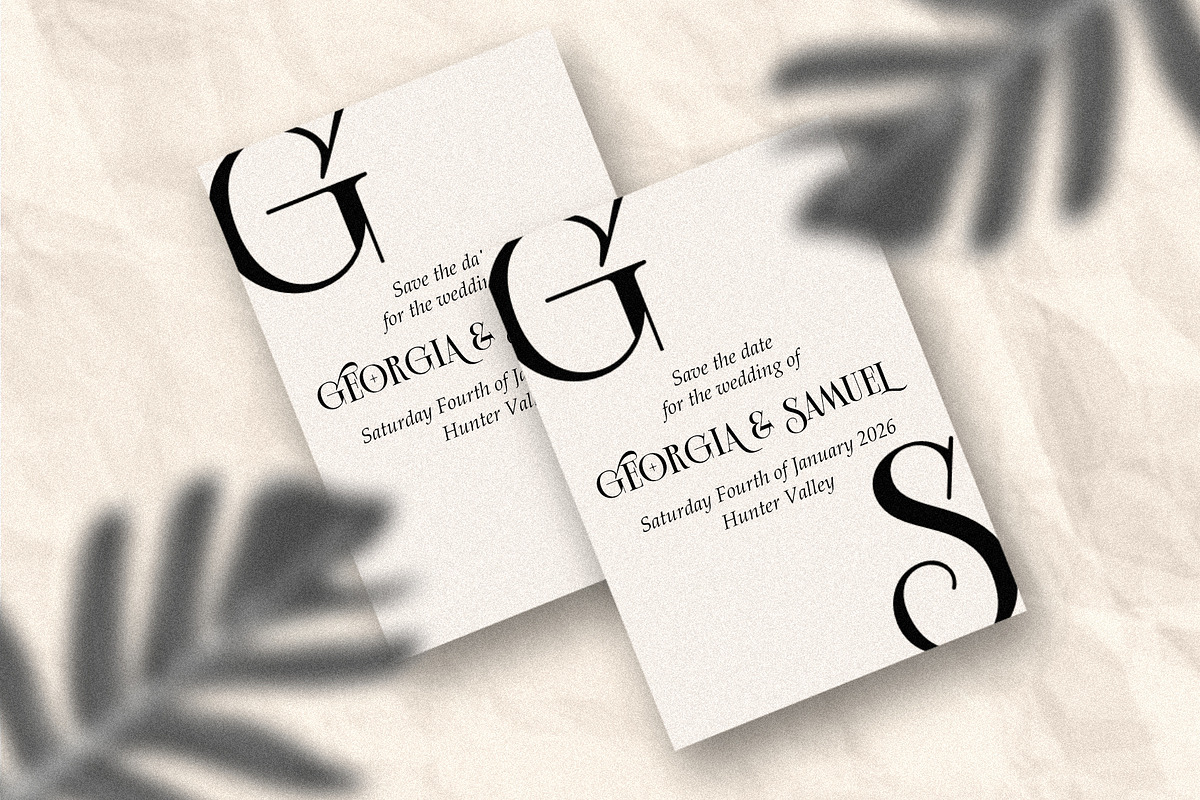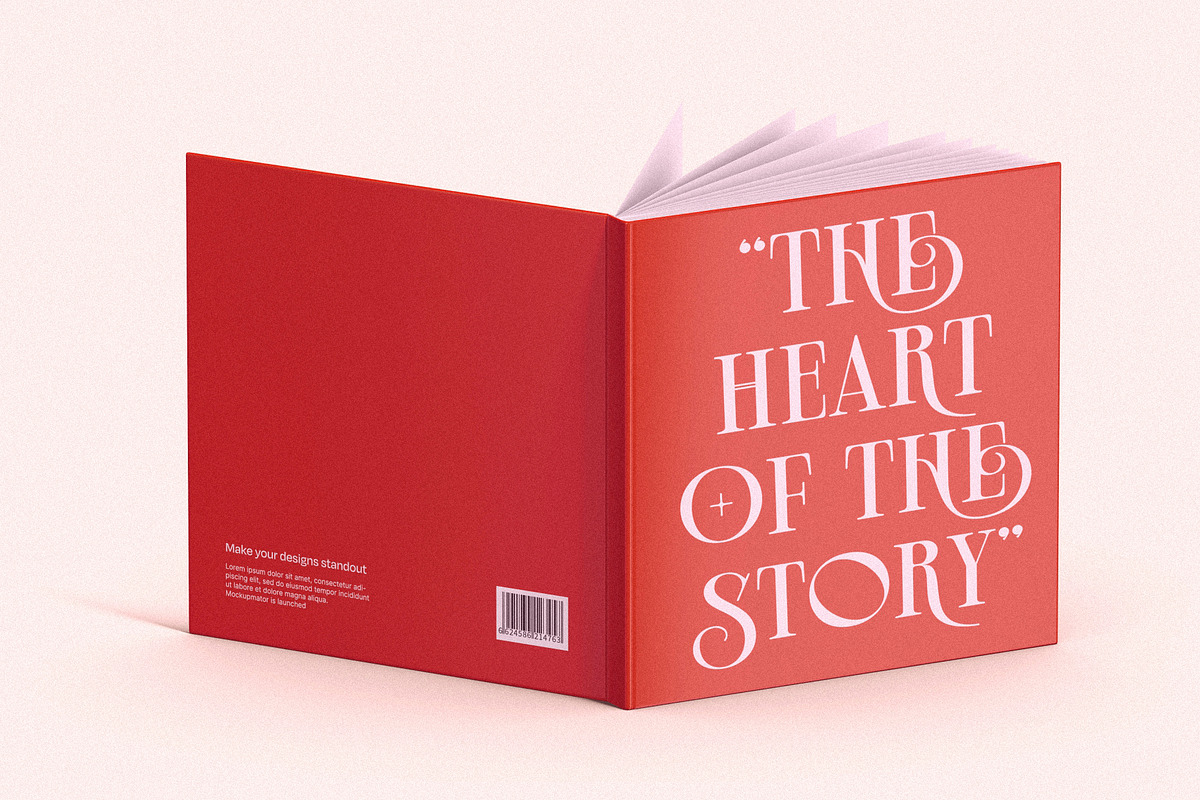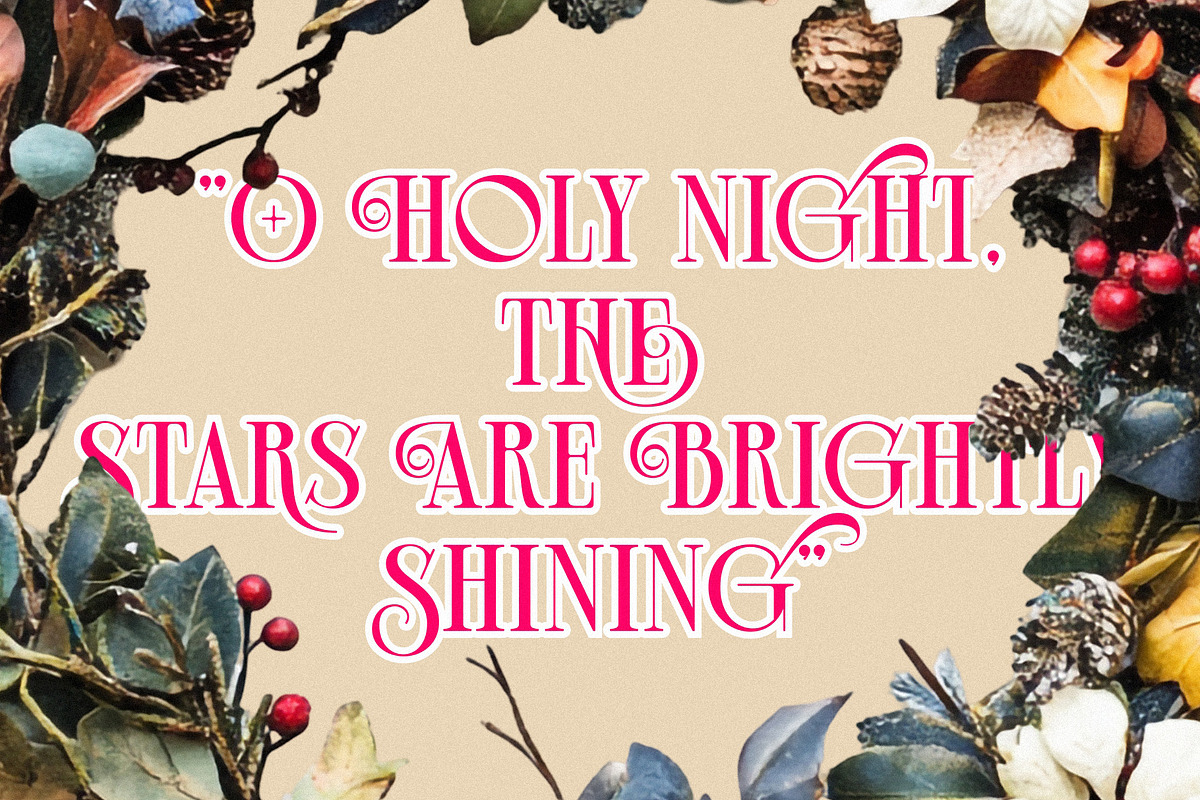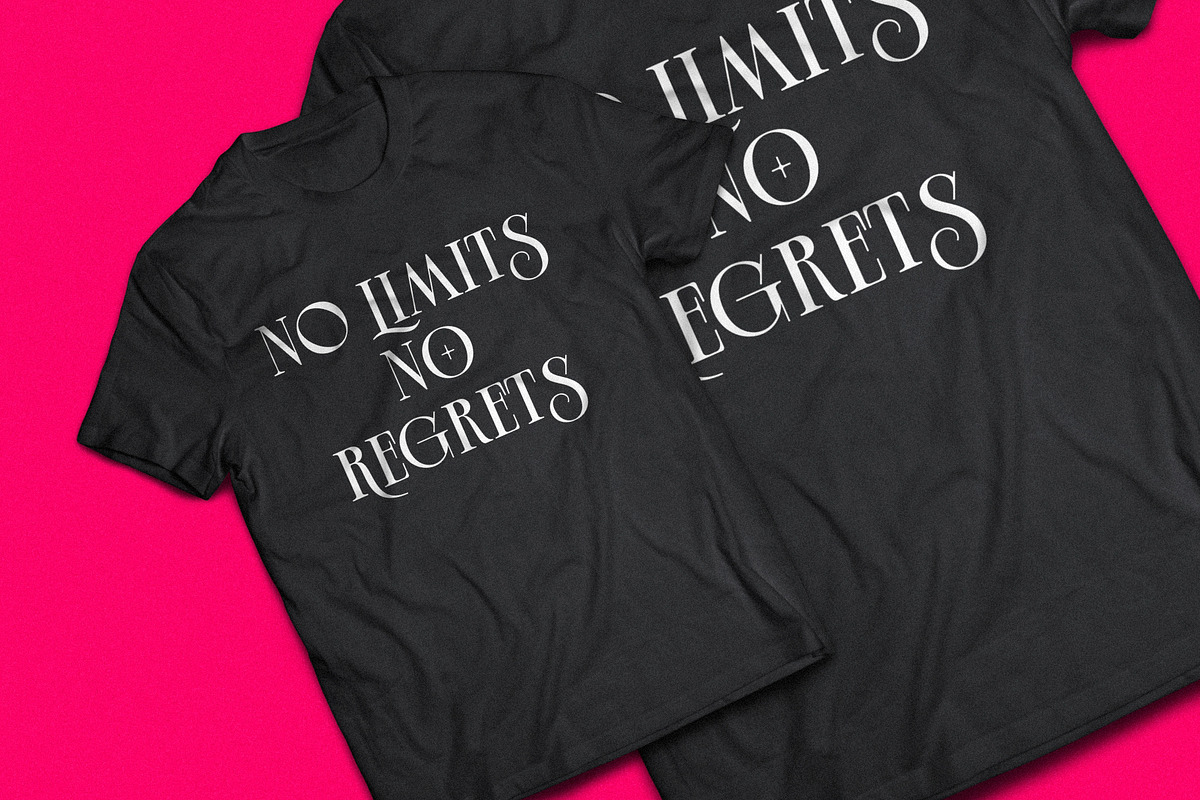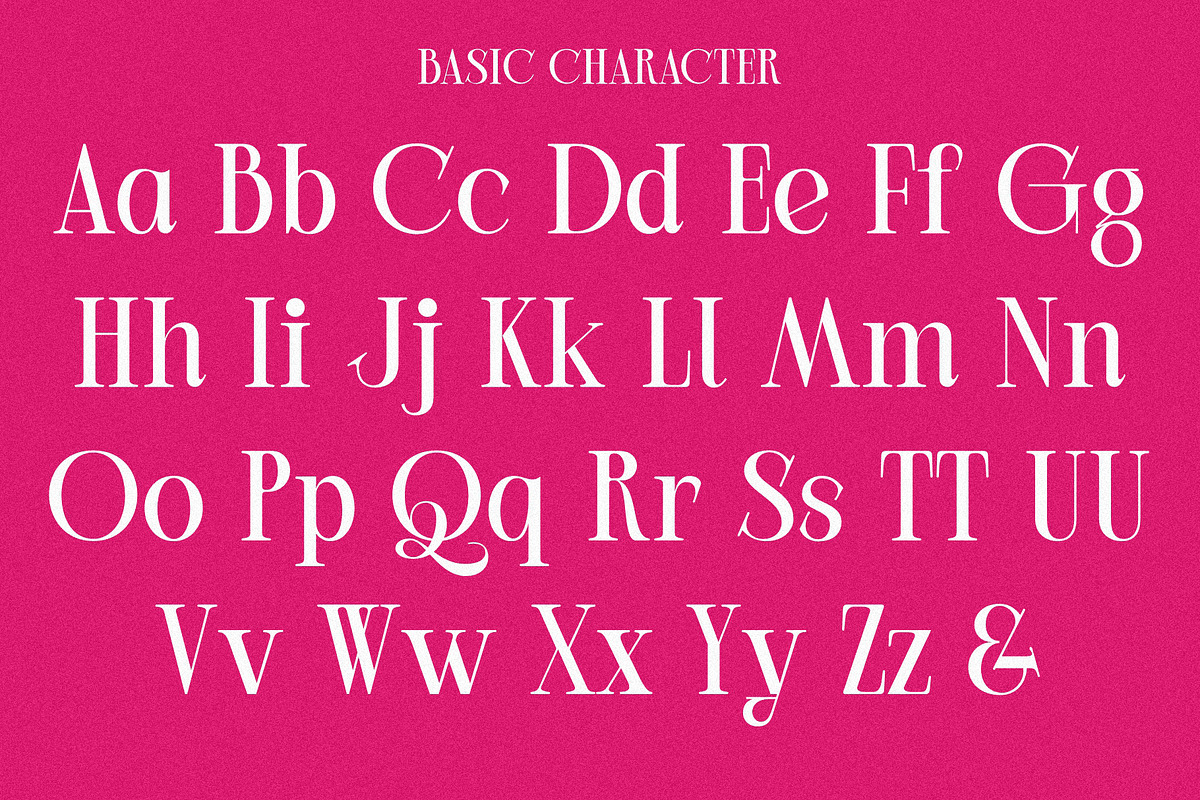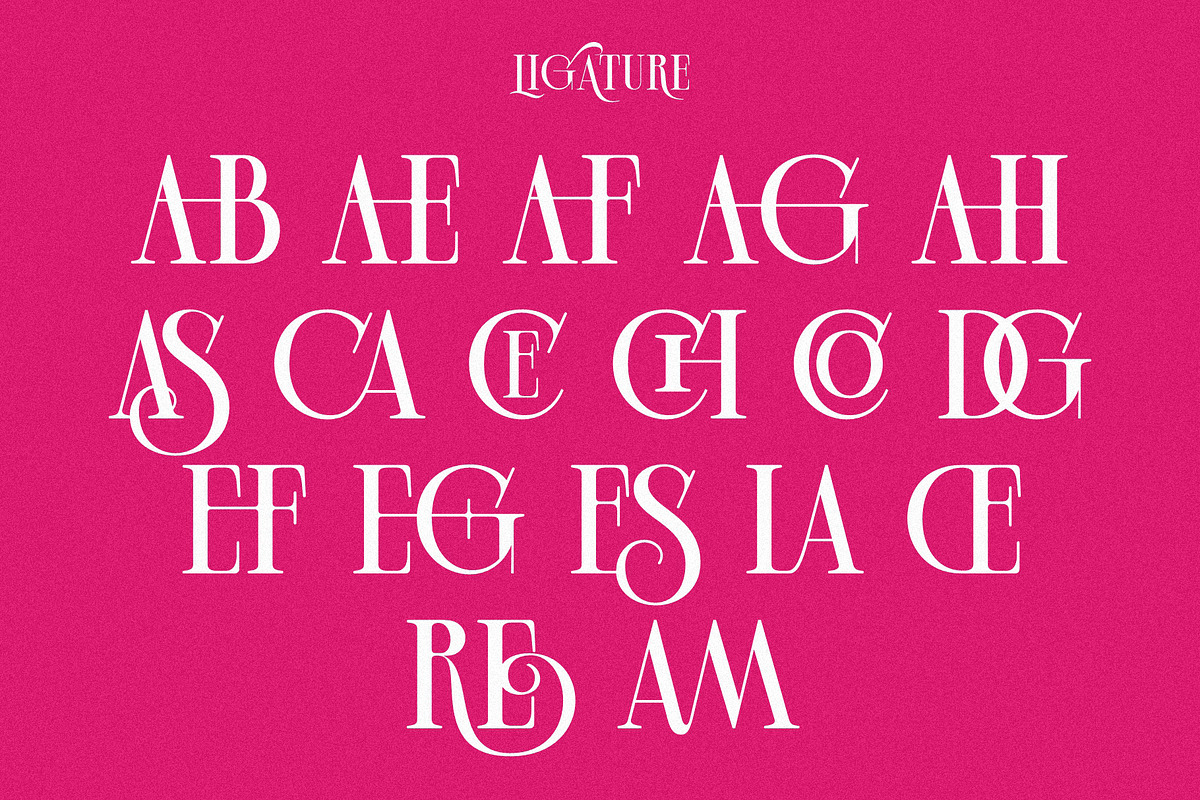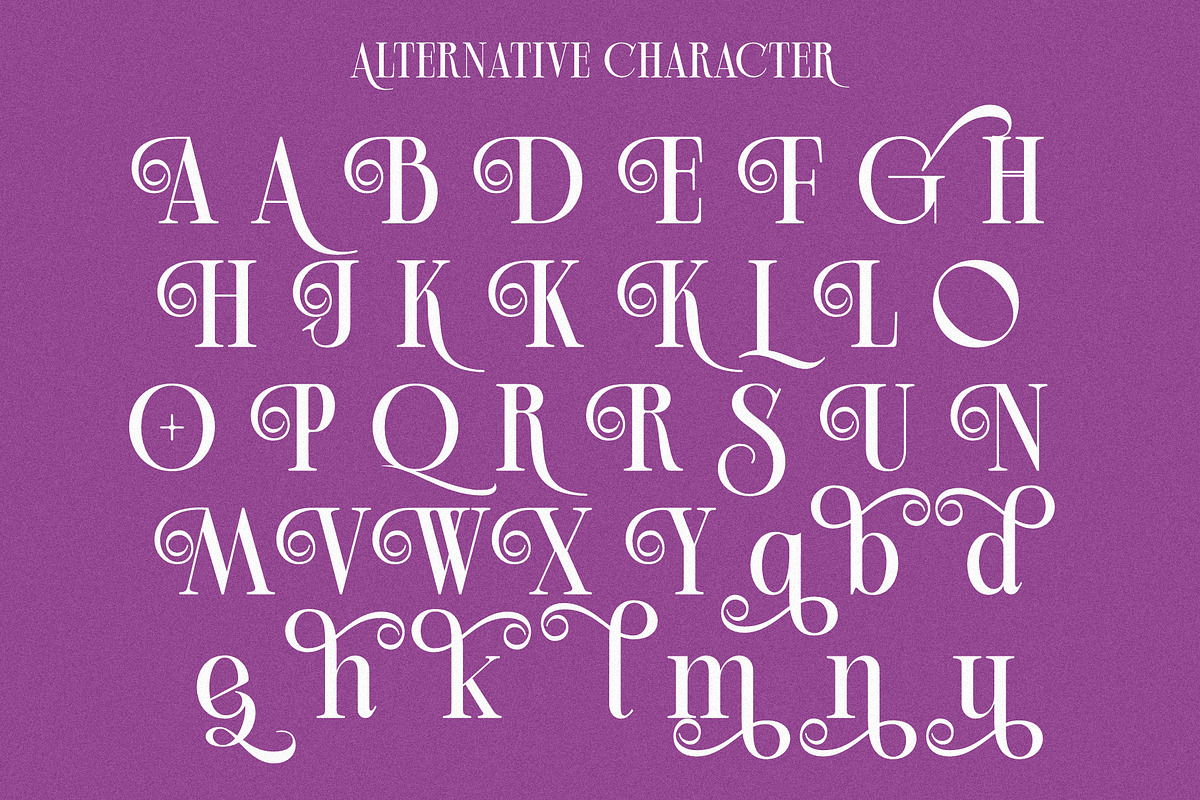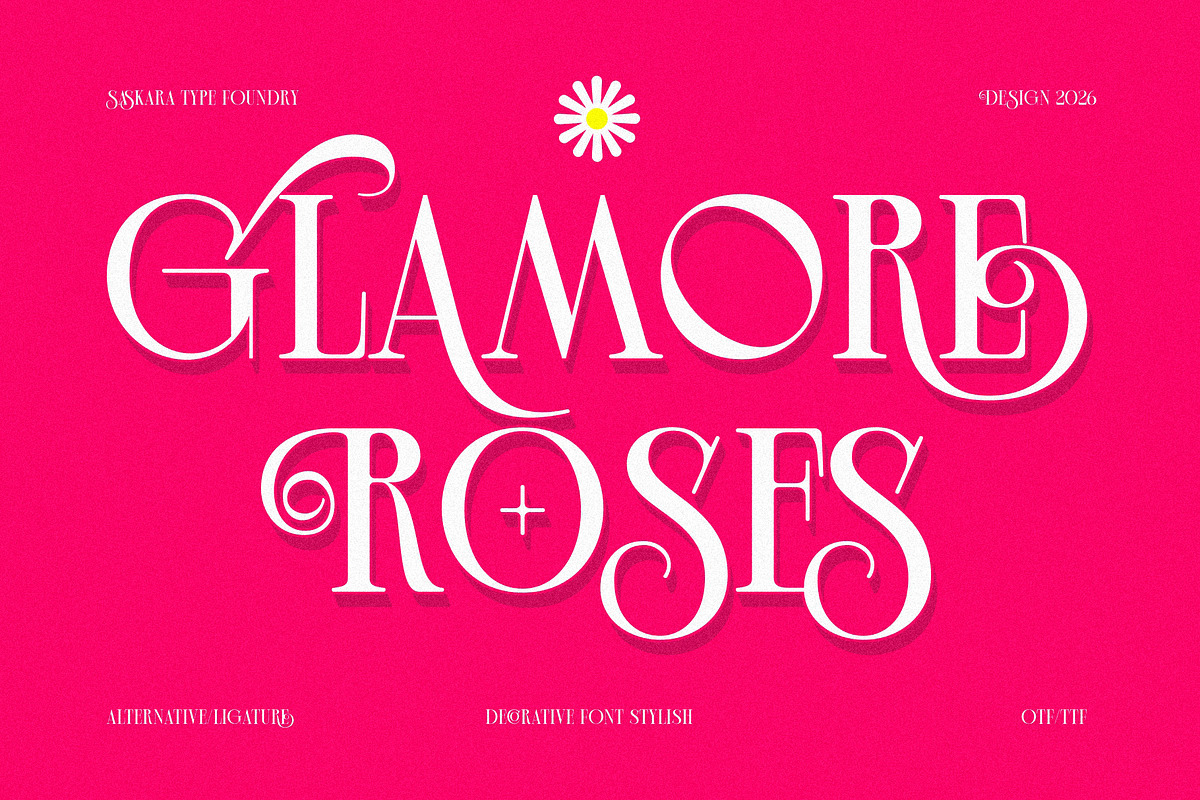
Glamore Roses
Glamore Roses is a decorative serif display font that embodies elegance, romance, and timeless glamour. Featuring high-contrast strokes, graceful curves, and beautifully crafted ornamental details, this typeface delivers a luxurious and expressive visual character. The inclusion of stylish alternates and ligatures enhances its artistic appeal, making every word feel refined and captivating.
Designed to stand out, Glamore Roses is perfect for logos, fashion and beauty branding, editorial headlines, posters, luxury packaging, wedding invitations, and exclusive event designs. Best used at large sizes, this font is ideal for projects that require a strong, classy, and unforgettable typographic presence.